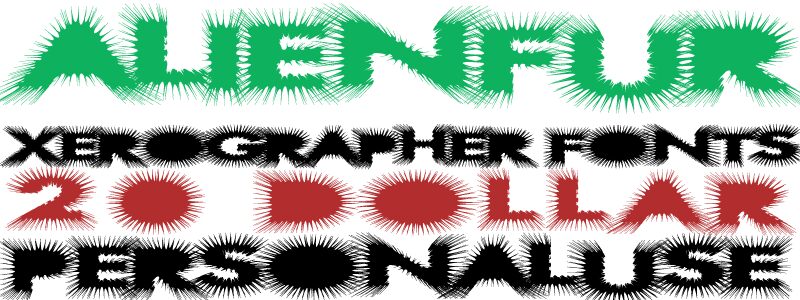
AlienFur by Max Infeld of Xerographer.com is a free decorative display font covered in dense, needle-like tufts. Its broad, dark letters have rounded cores and ragged edges, producing a furry silhouette with a restless, slightly menacing quality.
A horror poster is its most convincing setting, especially when the lettering needs to suggest a creature or wild transformation. The same bristling texture suits monster-film graphics, Halloween merchandise, and eccentric music packaging. On magazine covers or feature openers, it can turn a title into an illustrated object rather than ordinary type.
Alien Fur! AlienFur!